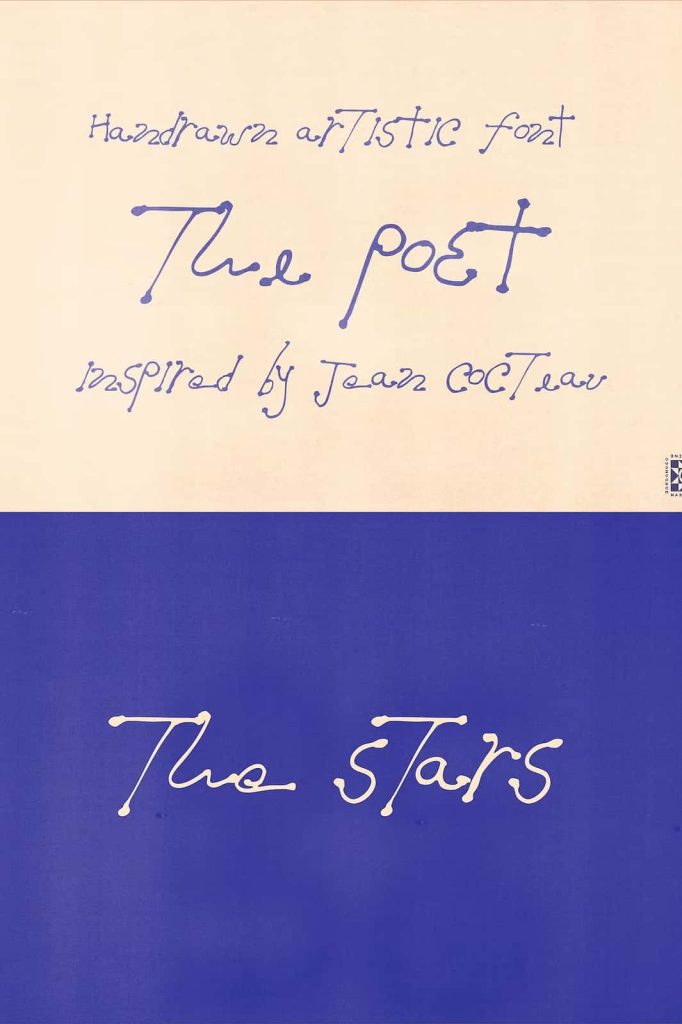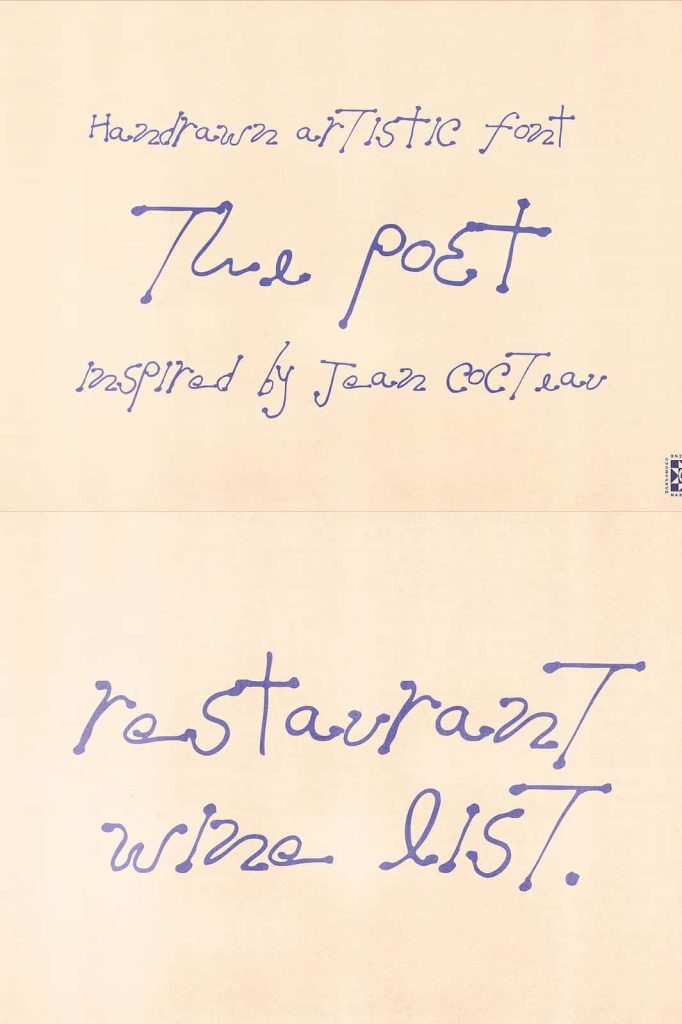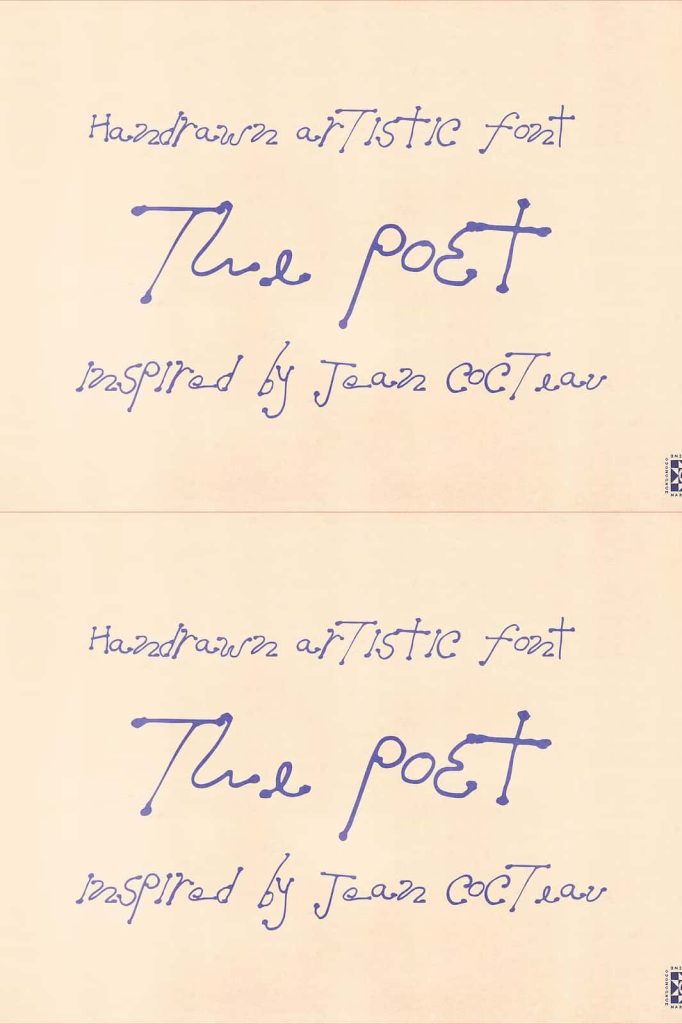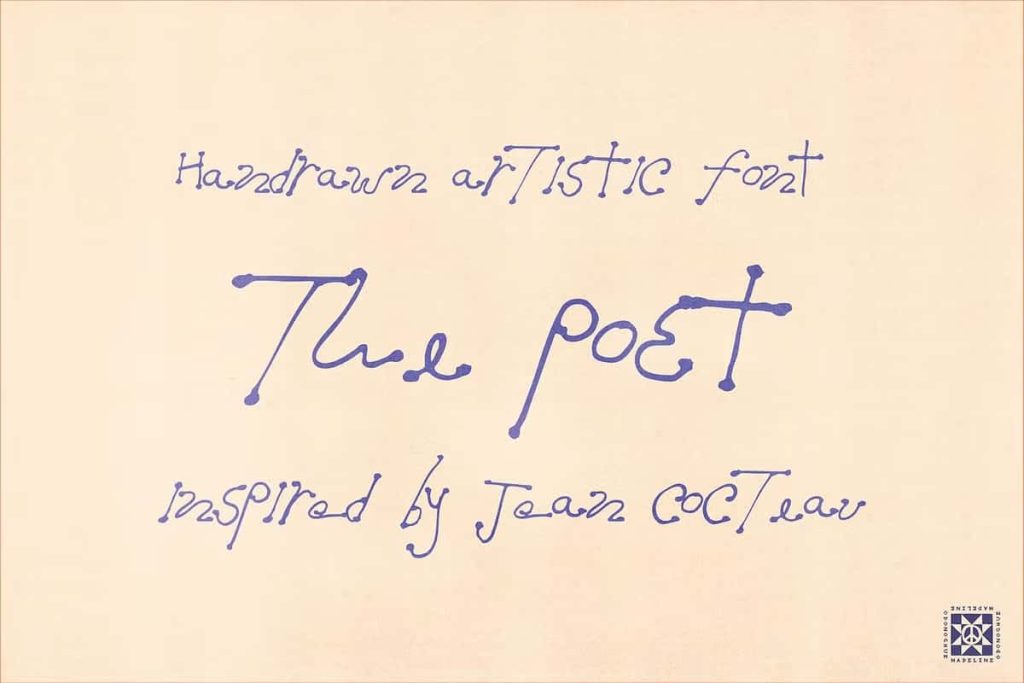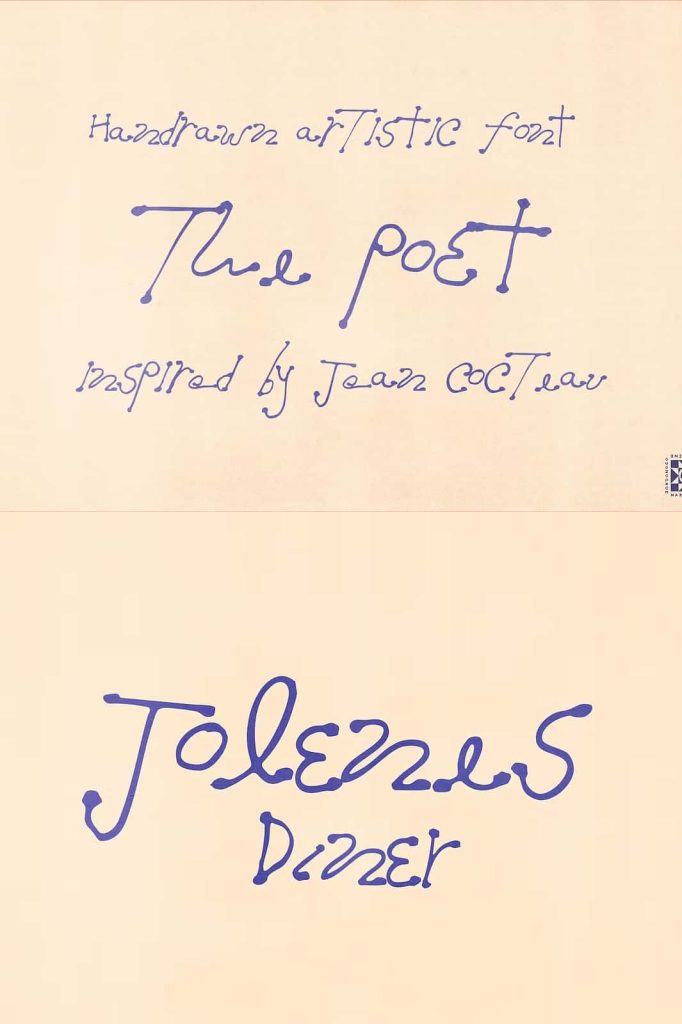
The Poet Handwritten Font: Expressive Imperfection with Artistic Character
The Poet is a hand drawn handwritten font that embraces the beauty of imperfection and transforms it into a powerful design asset. This typeface captures the raw essence of true handwriting, where every stroke carries emotion, movement, and individuality. Instead of striving for mechanical precision, The Poet celebrates irregularity, allowing designers to create work that feels authentic, human, and deeply expressive.
Each letterform reflects a natural writing process, complete with subtle inconsistencies that make the font feel alive. The Poet does not attempt to hide its imperfections—it highlights them as a core strength. This approach gives designers the freedom to move beyond rigid typography and explore a more organic and artistic direction in their projects.
Inspired by the Beauty of Real Handwriting
The Poet draws inspiration from genuine handwritten notes, where every word carries a personal touch. The font mirrors the unpredictable rhythm of handwriting, with uneven baselines and varied letter shapes that create a dynamic flow. This natural variation adds depth and character, making text feel more engaging and relatable.
Unlike conventional fonts that rely on uniformity, The Poet introduces controlled irregularity to achieve a more authentic appearance. The sketch-like textures enhance this effect, giving each character a hand-crafted quality that stands out in both print and digital formats. Designers can use this feature to evoke emotion and create a stronger connection with their audience.
Sketch-Like Textures and Inky Details
One of the defining features of The Poet is its sketch-inspired texture. The strokes appear slightly rough and organic, as if they were drawn directly onto paper with ink. This textured approach adds visual richness and makes the font feel tactile, even in digital environments.
Inky blots and subtle imperfections further enhance the font’s personality. These details introduce an element of spontaneity, making each composition feel unique. Instead of appearing overly polished, The Poet delivers a raw and artistic aesthetic that captures attention and invites closer inspection.
Uneven Baselines That Add Movement
The uneven baseline is another key characteristic that sets The Poet apart. Letters do not sit perfectly aligned, which creates a sense of motion and rhythm within the text. This feature mimics the natural flow of handwriting, where words shift slightly as they are written.
This dynamic quality allows designers to create layouts that feel more fluid and less constrained. It works particularly well in creative compositions where energy and expression play a central role. The Poet encourages designers to embrace this movement and use it to enhance the overall visual impact.
Perfect for Artistic and Creative Projects
The Poet adapts beautifully to a wide range of design applications. In artistic projects, it adds depth and emotion, making it ideal for posters, illustrations, and creative compositions. Its expressive style helps transform simple text into a meaningful visual element.
For branding, The Poet creates a strong and memorable identity. It works especially well for brands that want to communicate authenticity, creativity, and individuality. The font’s handcrafted appearance helps establish a personal connection with audiences, making it suitable for lifestyle brands, creative businesses, and independent creators.
In editorial design, The Poet enhances storytelling by adding a human touch to typography. It works effectively for quotes, headings, and decorative text, where its unique character can shine without overwhelming readability. Designers can use it to create layouts that feel intimate and engaging.
A Typeface That Feels Alive
The Poet stands out because it feels alive. Its irregular forms, textured strokes, and expressive details create a sense of movement and personality that few fonts achieve. It invites designers to step away from perfection and explore a more authentic approach to typography.
This font does more than display words—it conveys emotion and intention. By choosing The Poet, designers gain access to a typeface that enhances storytelling, strengthens visual identity, and brings a unique artistic voice to every project.
With its combination of raw beauty and creative flexibility, The Poet becomes an essential tool for anyone seeking to create designs that feel genuine, expressive, and unforgettable.